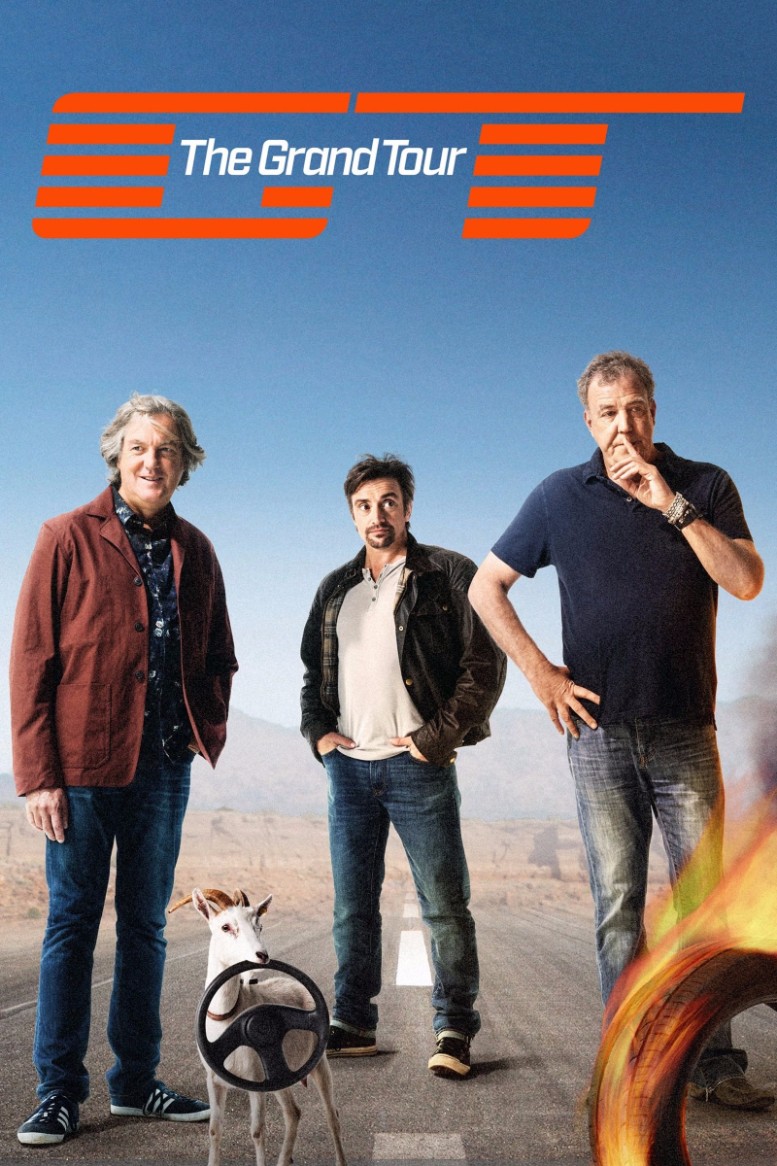
The Grand Tour Font
ActionThe Grand Tour is a television show featuring former Top Gear presenters Jeremy Clarkson, Richard Hammond, and James May. The show follows the hosts as they travel around the world in a variety of cars, completing challenges and experiencing local culture.
The Grand Tour title is in Industry Demi Italic an industrial sans serif typeface. Eight weights, from thin to ultra, and corresponding italics are offered in the Mattox Shuler-designed Industry typeface font family. Additionally, it contains a styled companion text named Industry Inc . The TV title's letter tracking was manually altered to make it appear smaller.